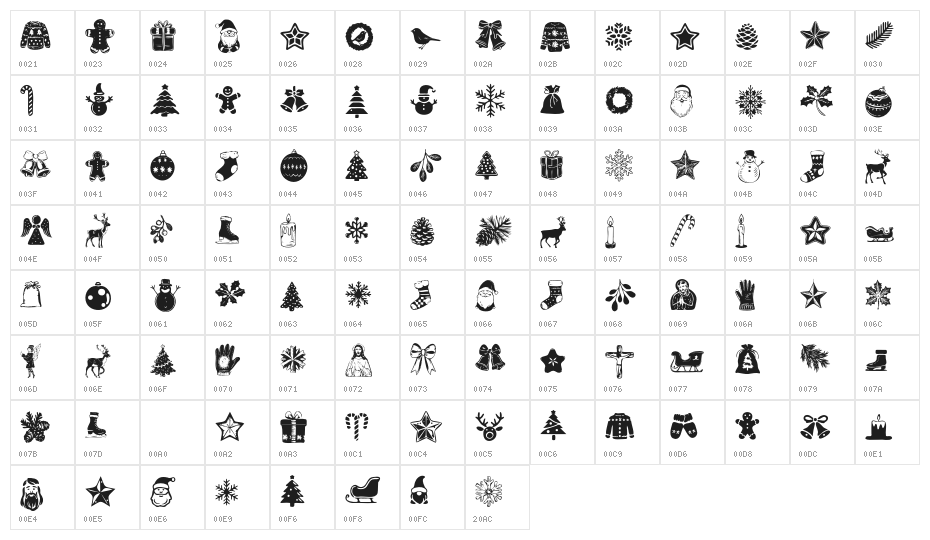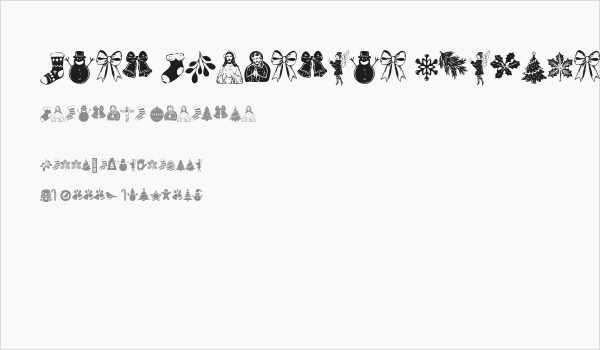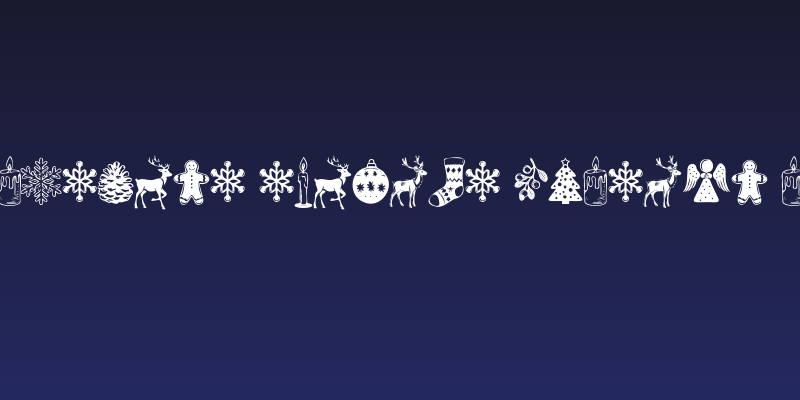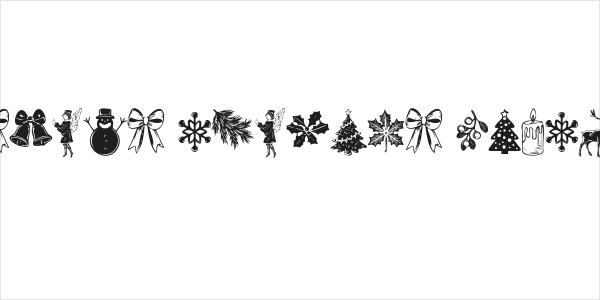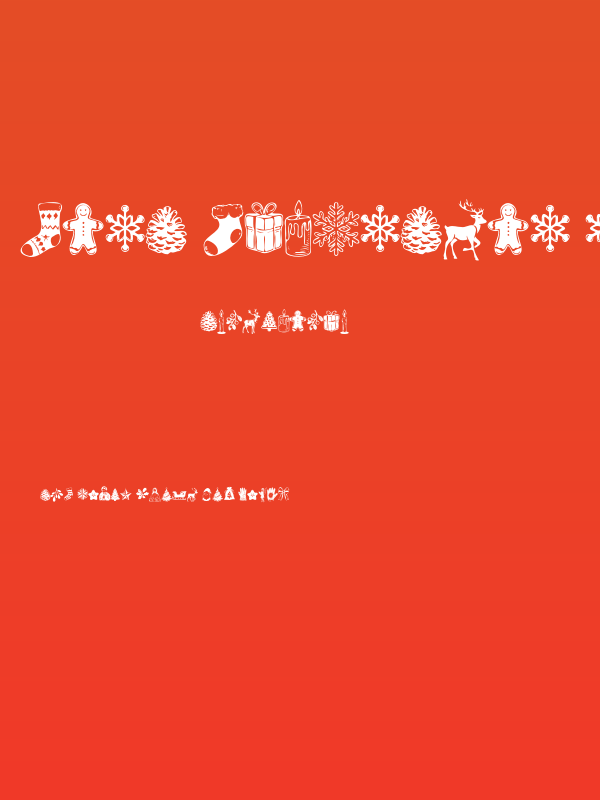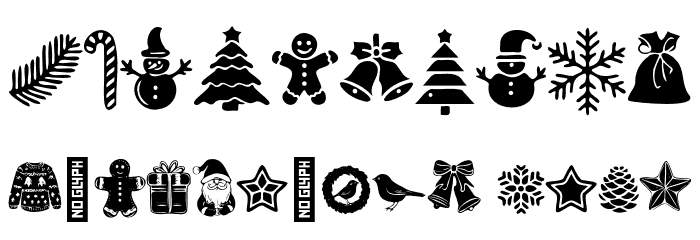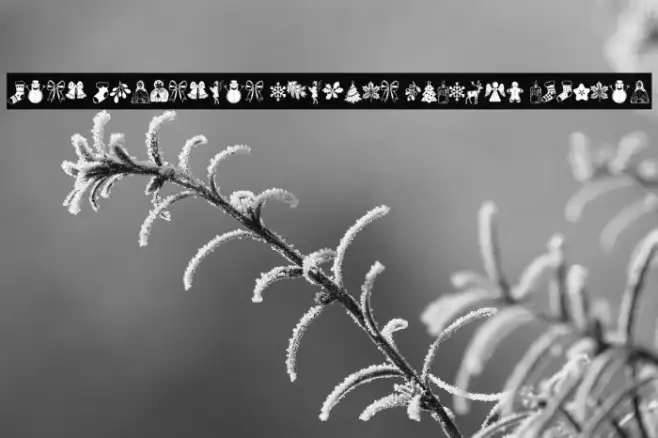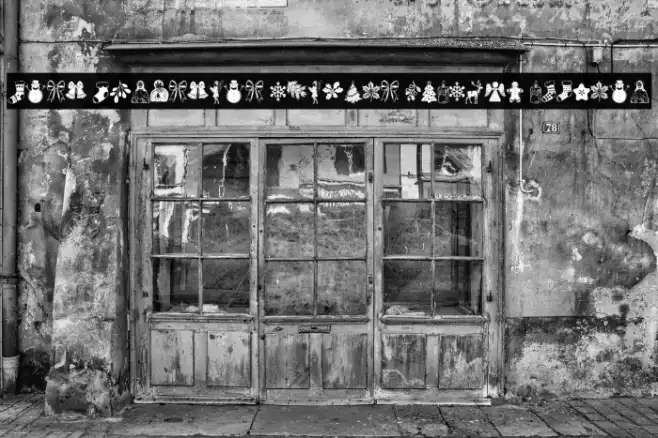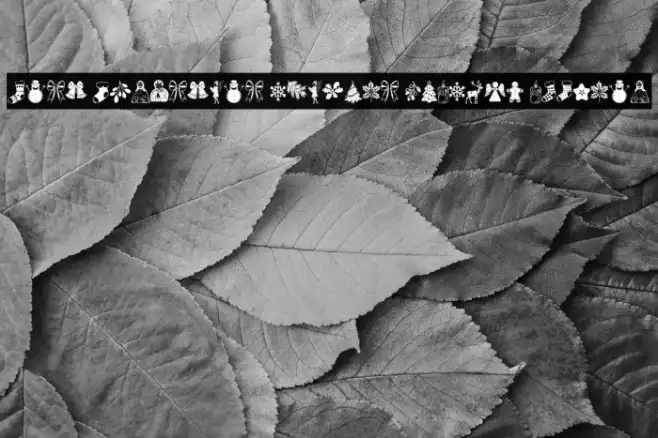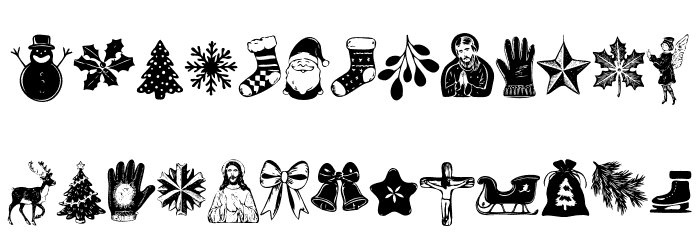
Last Christmas Symbols PERSONA Regular Font
Last Christmas Symbols PERSONA Regular Description
A decorative symbol set featuring a wide variety of Christmas and holiday-themed icons, including trees, snowflakes, stockings, Santa, gifts, reindeer, angels, and other festive elements. The icons are bold, high-contrast, and rendered in a playful, illustrative style with both filled and outlined shapes.
| Overall Style | Decorative, Festive, Playful |
| Use Case | Icons, Decorative elements, Themed graphics |
| Proposed Projects | Holiday cards, festive posters, gift tags, seasonal social media graphics, event invitations, scrapbooking, and decorative packaging. |